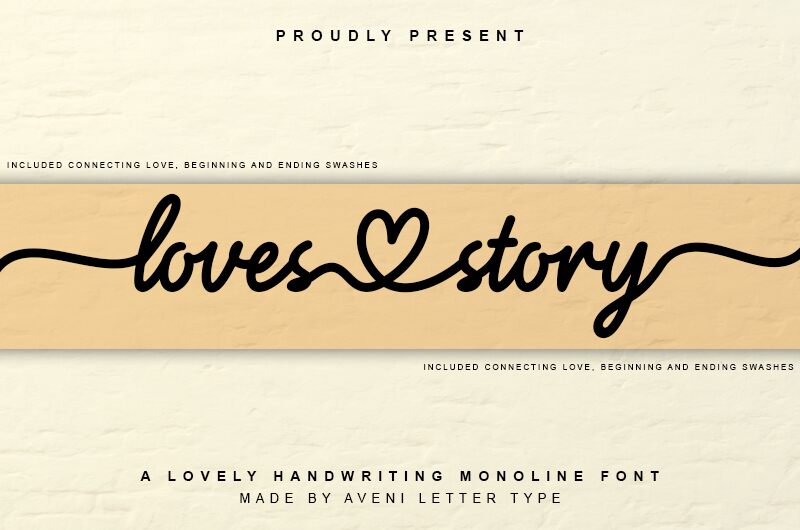
Loves Story
Loves Story font by Aveni Letter Type is a handwritten, casual script font that embodies an expressive and friendly tone. Its modern aesthetic and effortless flow make it highly Instagrammable, adding a touch of elegance to any project.
- Complete Beginning & Ending Swashes
- Complete Connecting Love